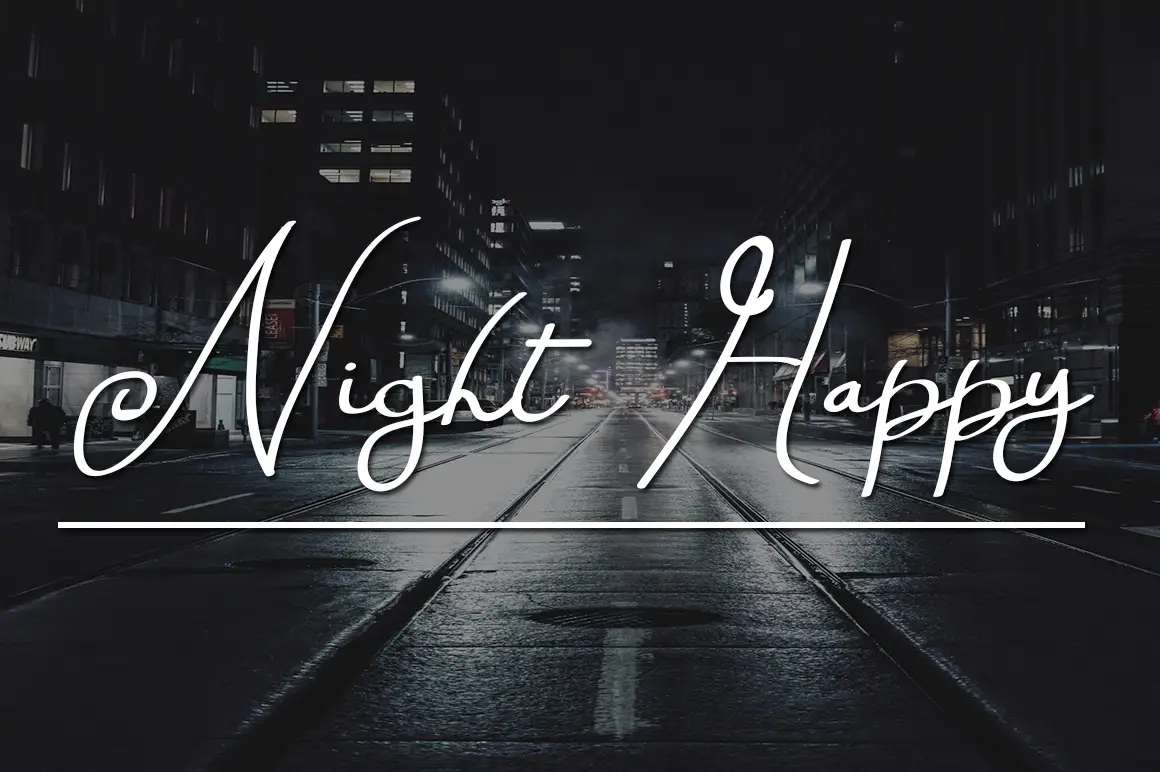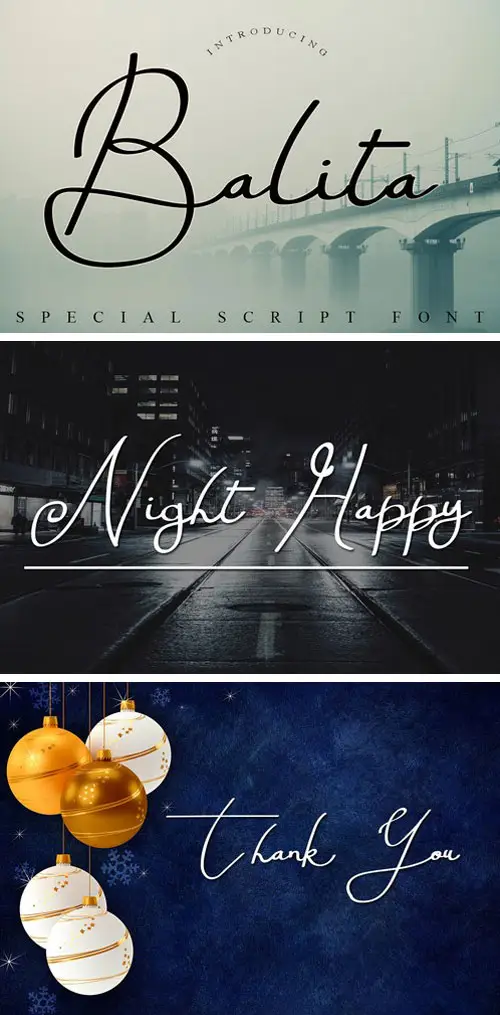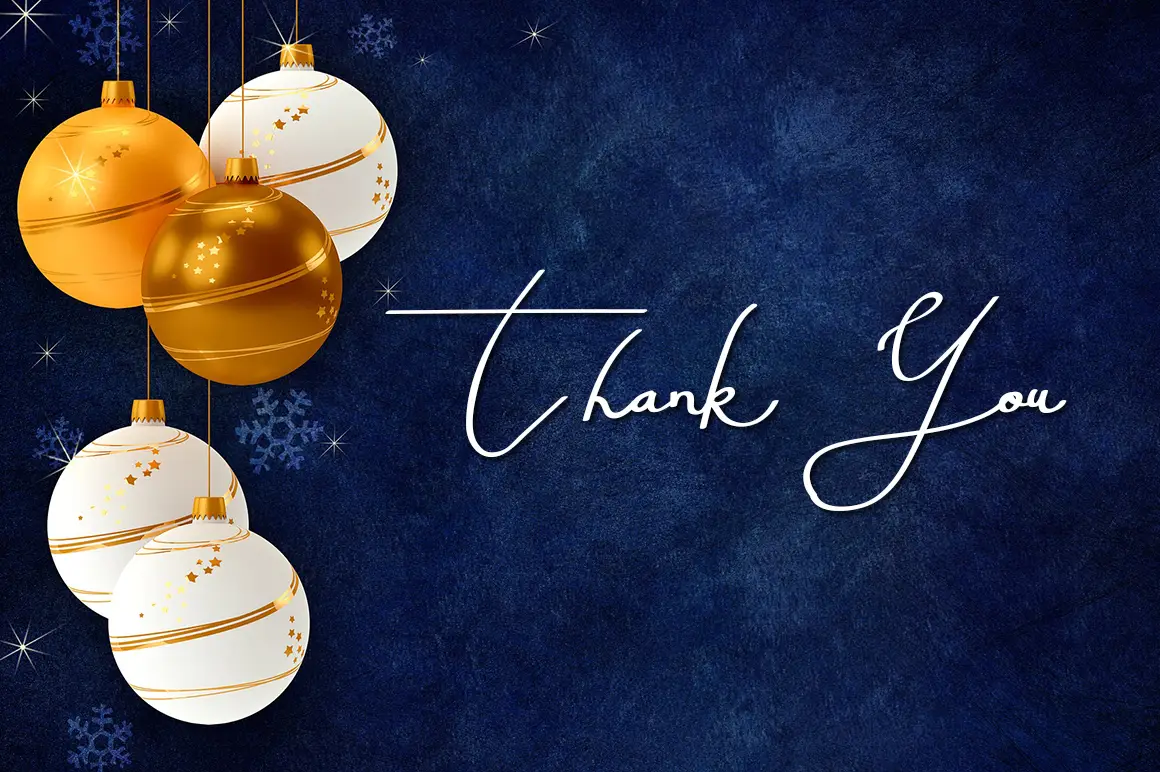
Balita Script Font
Introducing the Balita Script Font, a beautifully crafted typeface that adds a touch of elegance to your designs. This font features a flowing, handwritten style that is perfect for a variety of creative projects.
• Stylish script design with a natural feel
• Easy to read and aesthetically pleasing
• Suitable for web and print applications
• Ideal for branding, logos, and invitations
• Perfect for social media graphics and marketing materials
• Use in UI designs for a personalized touch